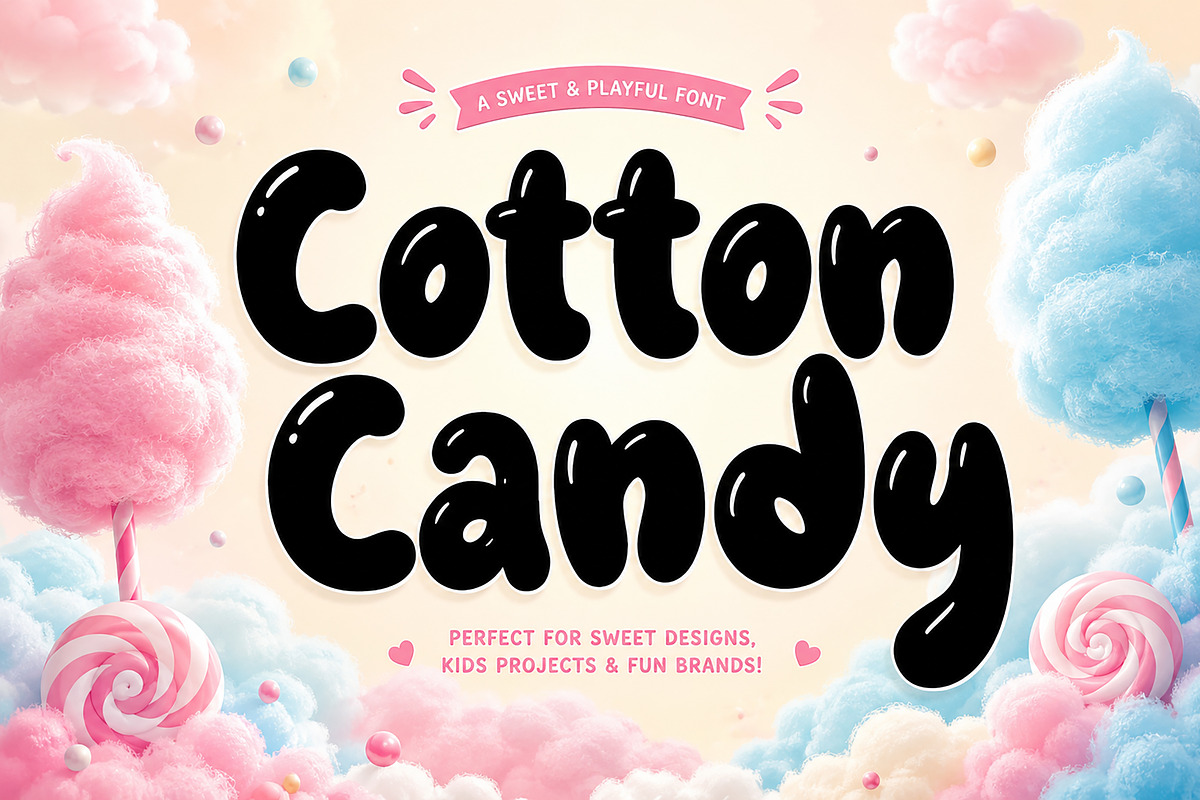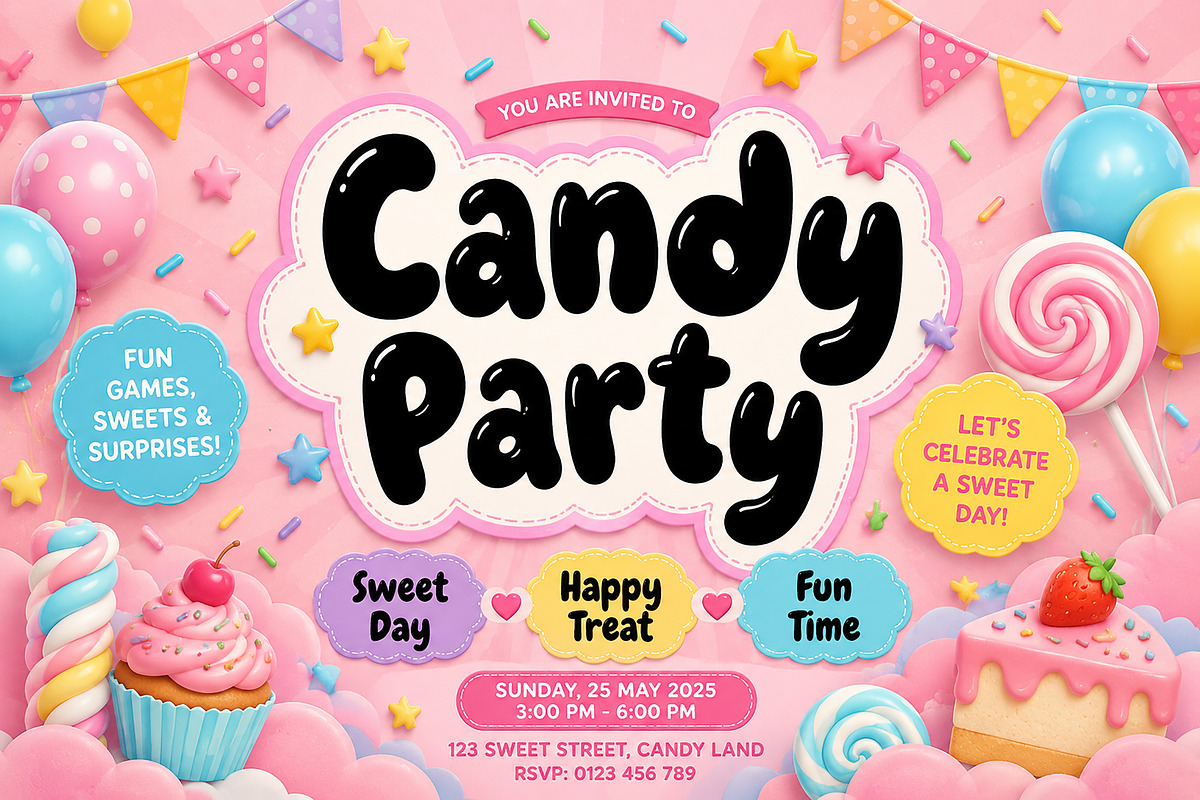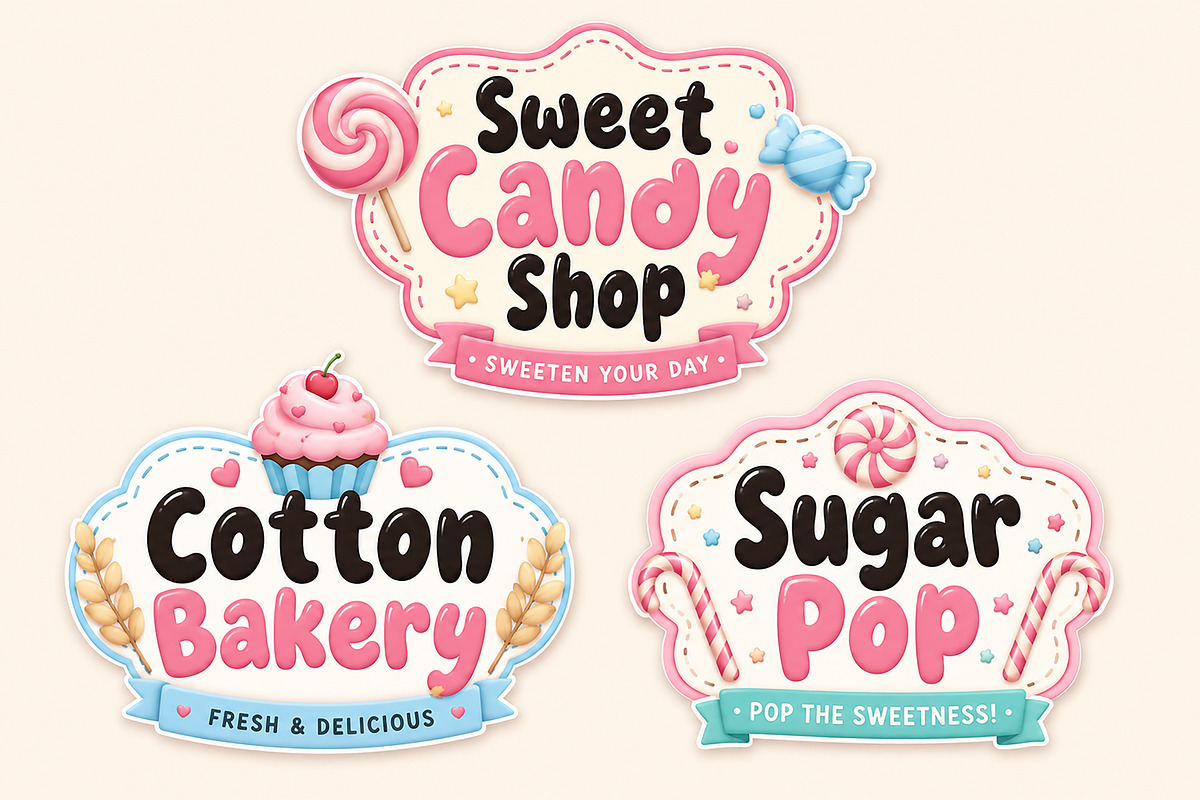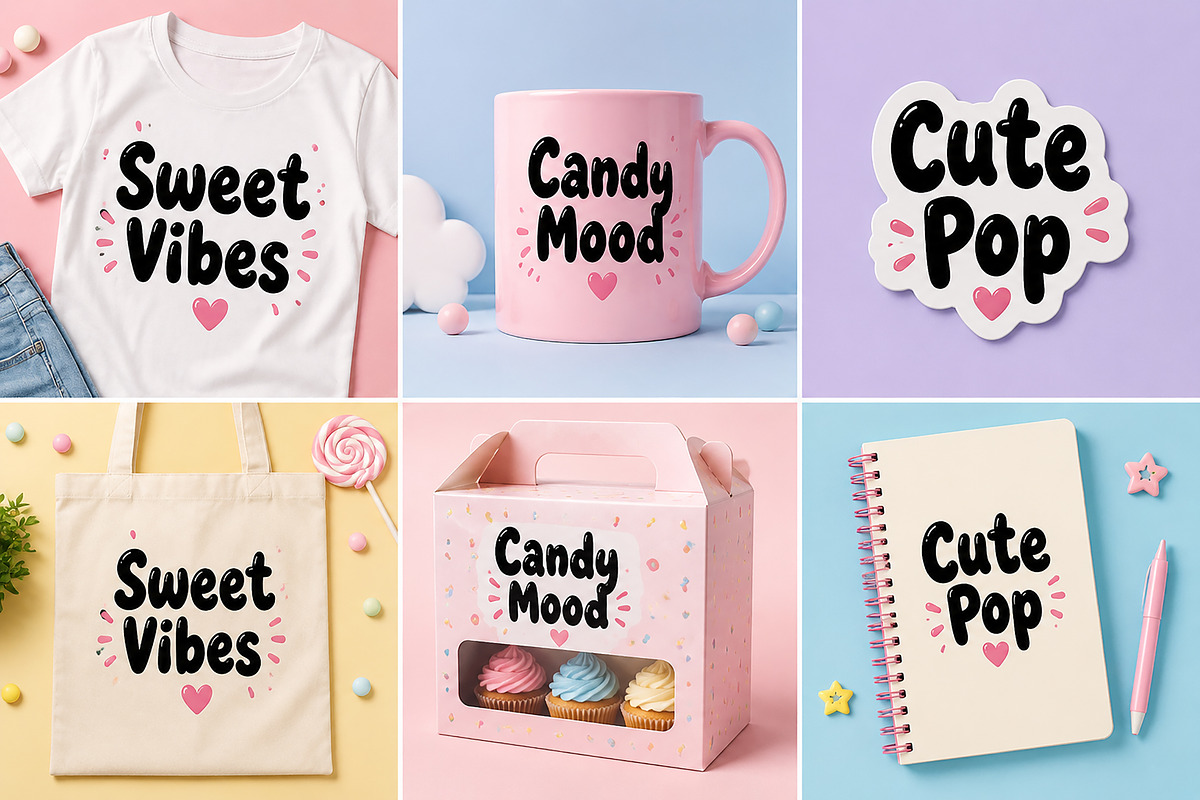
Cotton Candy
Cotton Candy – Playful Display Font
Cotton Candy is a sweet, playful, and bubbly display font inspired by candy shops, birthday parties, and fun kids’ designs. With its soft rounded shapes and cheerful personality, this font is perfect for creating eye-catching titles, logos, invitations, stickers, packaging, and creative branding projects.
Whether you're designing for a children's brand, bakery, candy store, party decoration, Cricut project, or social media graphic, Cotton Candy adds a delightful and friendly touch to every design.
Kids Branding
Candy & Sweet Shop Logos
Birthday Invitations
Party Decorations
Stickers & Labels
Bakery Packaging
T-Shirt Designs
Cricut & Craft Projects
Posters & Flyers
Nursery Designs
Fun & Friendly Style
High-Quality Display Typeface
Bring sweetness and happiness to your next project with Cotton Candy!